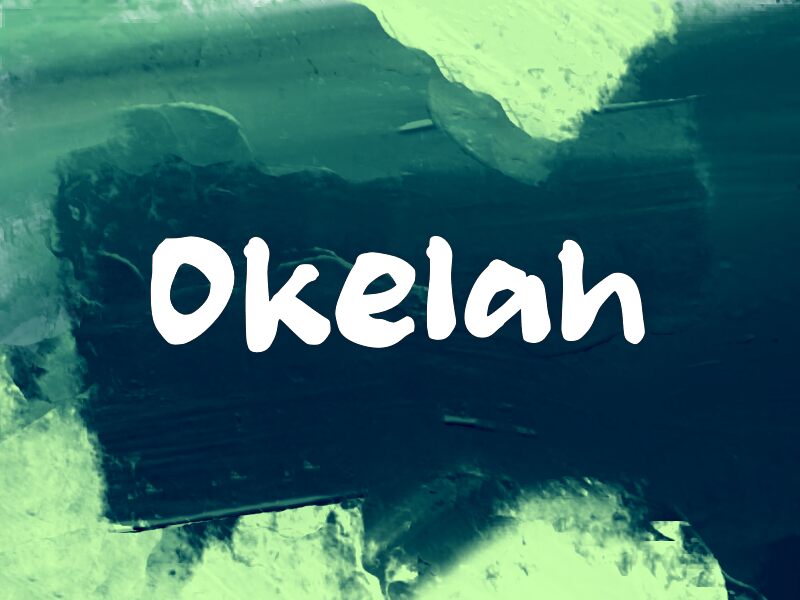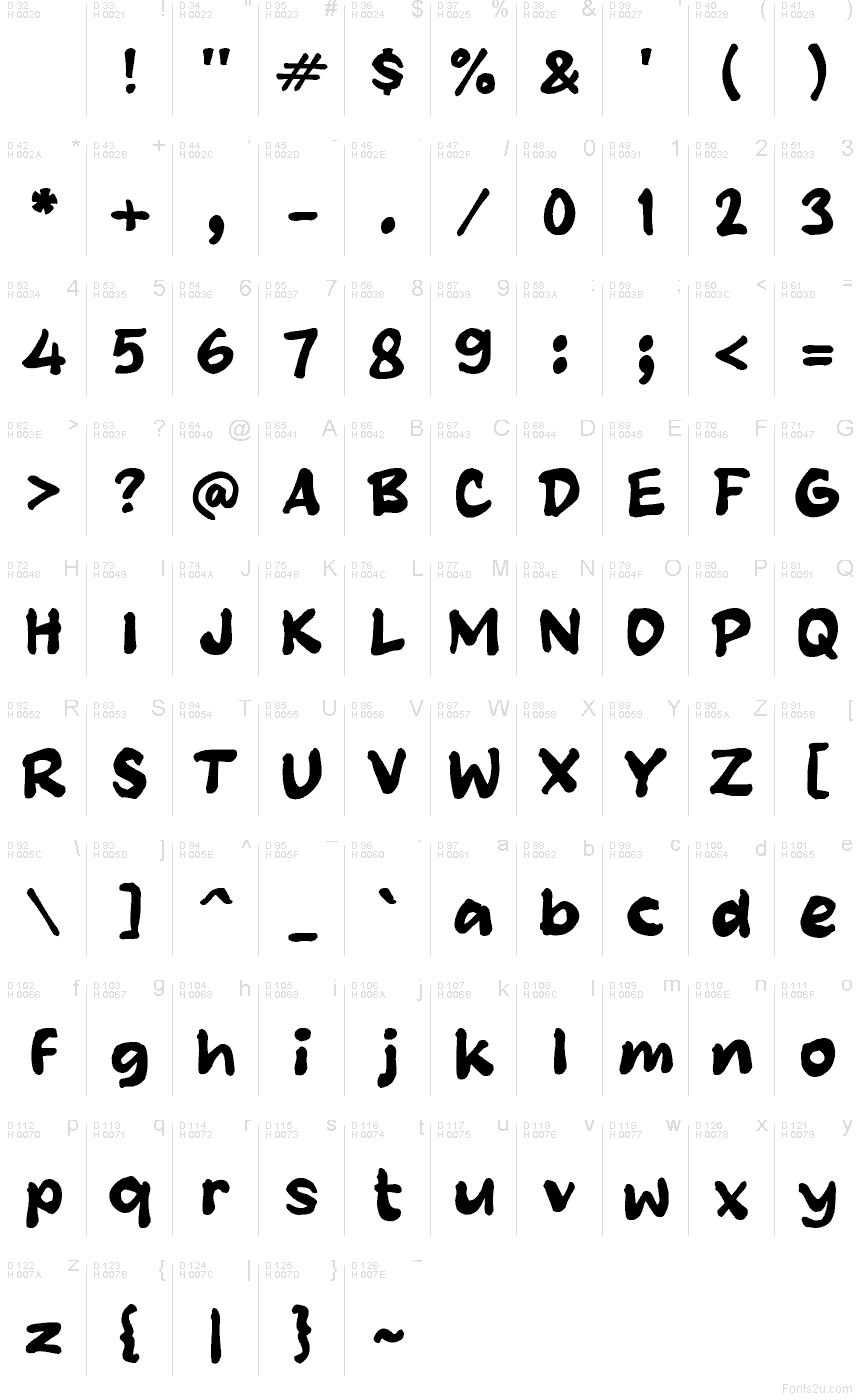
Okelah by Wep is a free brush font shaped by broad, painty strokes and soft rounded ends that make the lettering feel cut from a loaded marker rather than drawn with a fine pen. The uneven swelling, slightly lopsided curves, and compact rhythm keep the texture homemade and full-bodied instead of neat or polished.
That sturdy brushed texture makes sense on cafe menus, product labels, packaging, poster headlines, and social media graphics where a hand-done note needs real graphic weight. Okelah can also anchor logo drafts or short merch text, especially when you want the rough edges and dense forms to feel informal, friendly, and tactile.
Okelah
Okelah font presentation and specimen